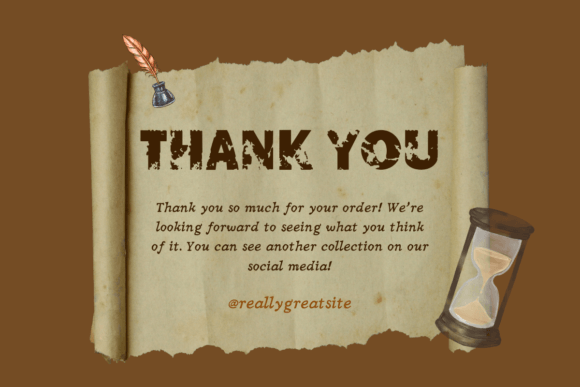
Vintage Creative Font
Vintage Creative is a cool, distressed display font. You ca use it for various designs, such as banners, content, mugs, cards, shirts, stationery, social media posts, and more!